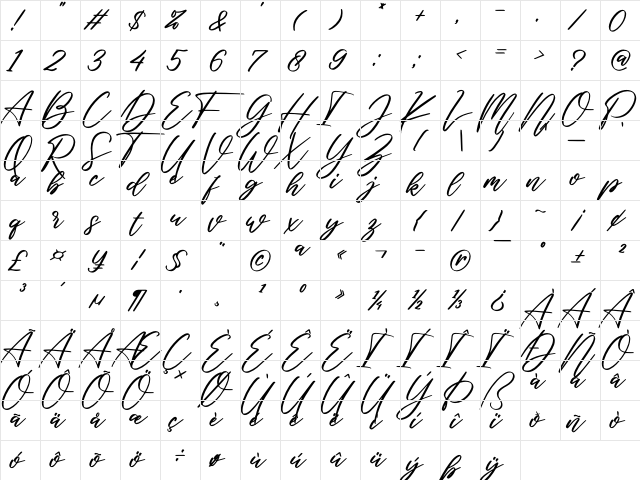
teeny tiny Regular
| Designer | Siti Nurjanah |
Design Context for teeny tiny Typeface
teeny tiny is a composed and adaptable typeface that performs quietly and consistently across a wide range of design contexts.